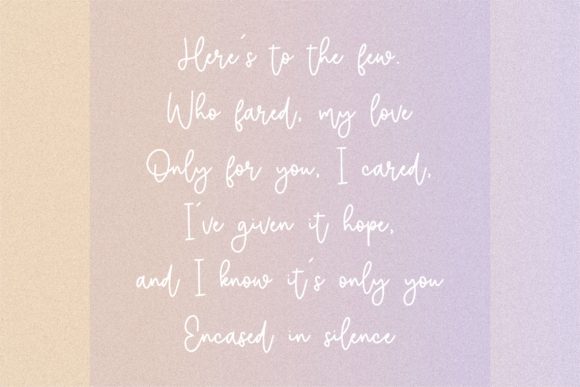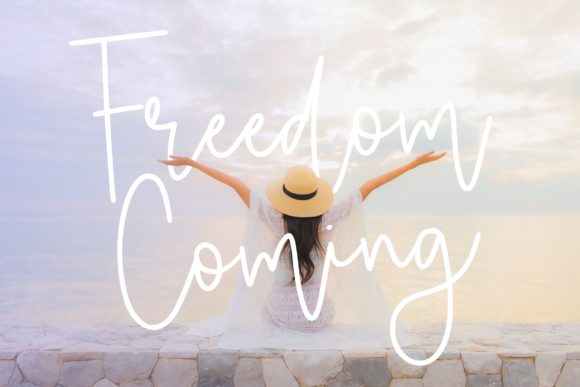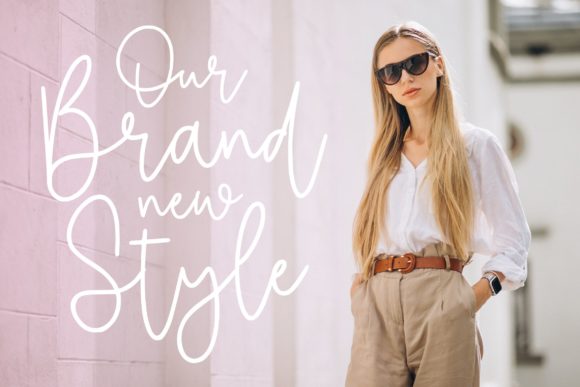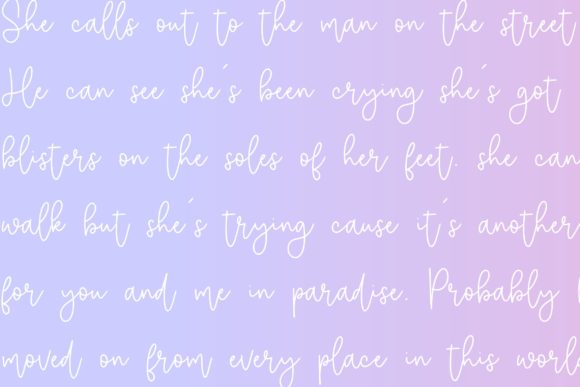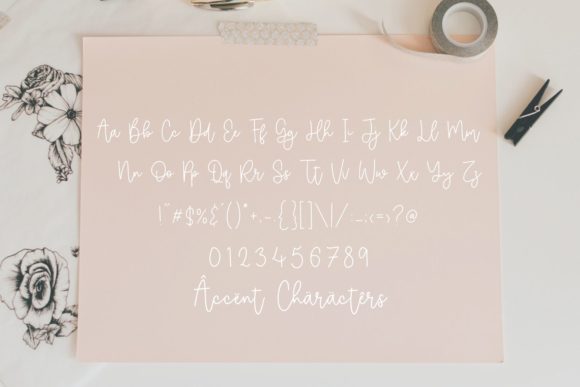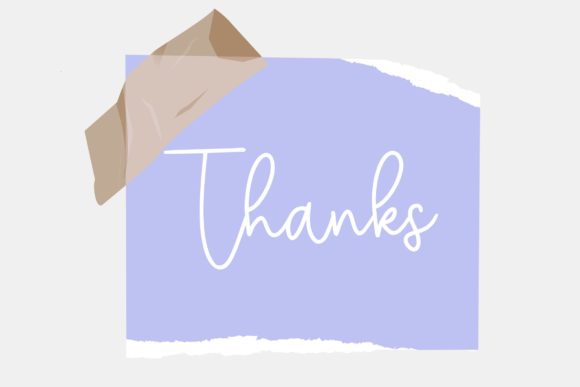
Introduction to Selimut Hati Font
Selimut Hati feels incredibly elegant and flowing.
Key Features of Selimut Hati Font
Why Choose Selimut Hati Font?
Selimut Hati Font offers exceptional quality and versatility, making it a valuable addition to your design toolkit. Whether you’re creating for personal projects or commercial use, Selimut Hati Font delivers professional results.